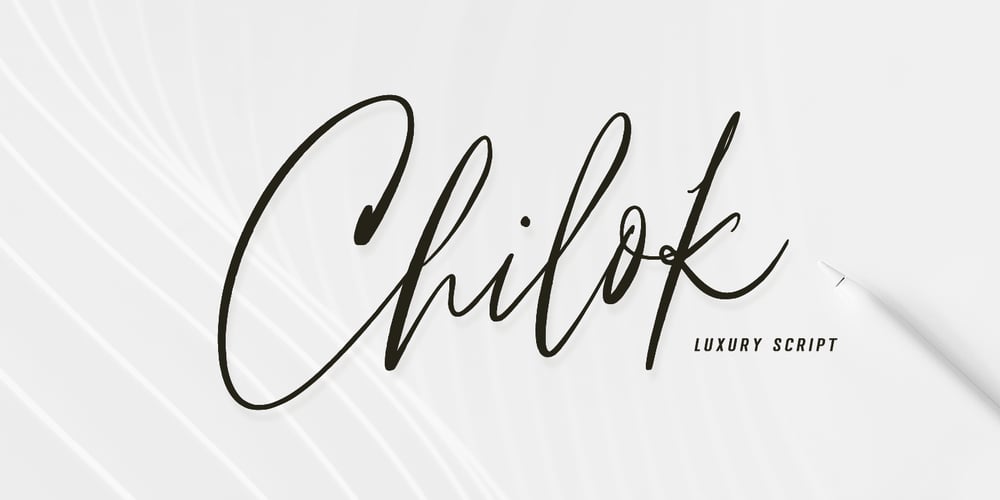
Chilok Font Family was designed by Mauli Zari and published by Dhan Studio. Chilok contains 1 styles and family package options. Chilok is a cool handwritten font that is also elegant and fashionable, which looks like a signature or logo, this font also has an alternative to beautify your design.Chilok is perfect for branding, logos, business cards, posters, invitations, greeting cards, news, product packaging, blog posters, all including personal charm, etc.